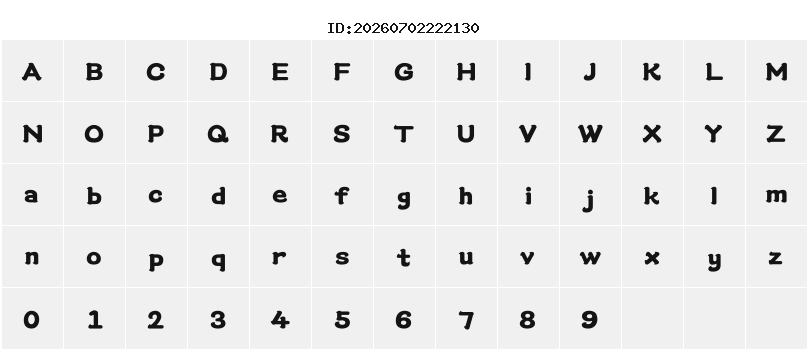
• Font Name: 159-上首财神体
• Font ID: 159-SScaishenti:Version 4.00
• Full Font Name: 159-上首财神体
• Version: Version 4.00 May 5, 2023
• PostScript Name: 159-SScaishenti
• Character Count: 7567
• Manufacturer: 上首造字
About 159-上首财神体.ttf
159-上首财神体.ttf is a modern, elegant sans-serif font designed for ultimate readability and visual harmony. Perfect for branding, headlines, web design, and print materials.